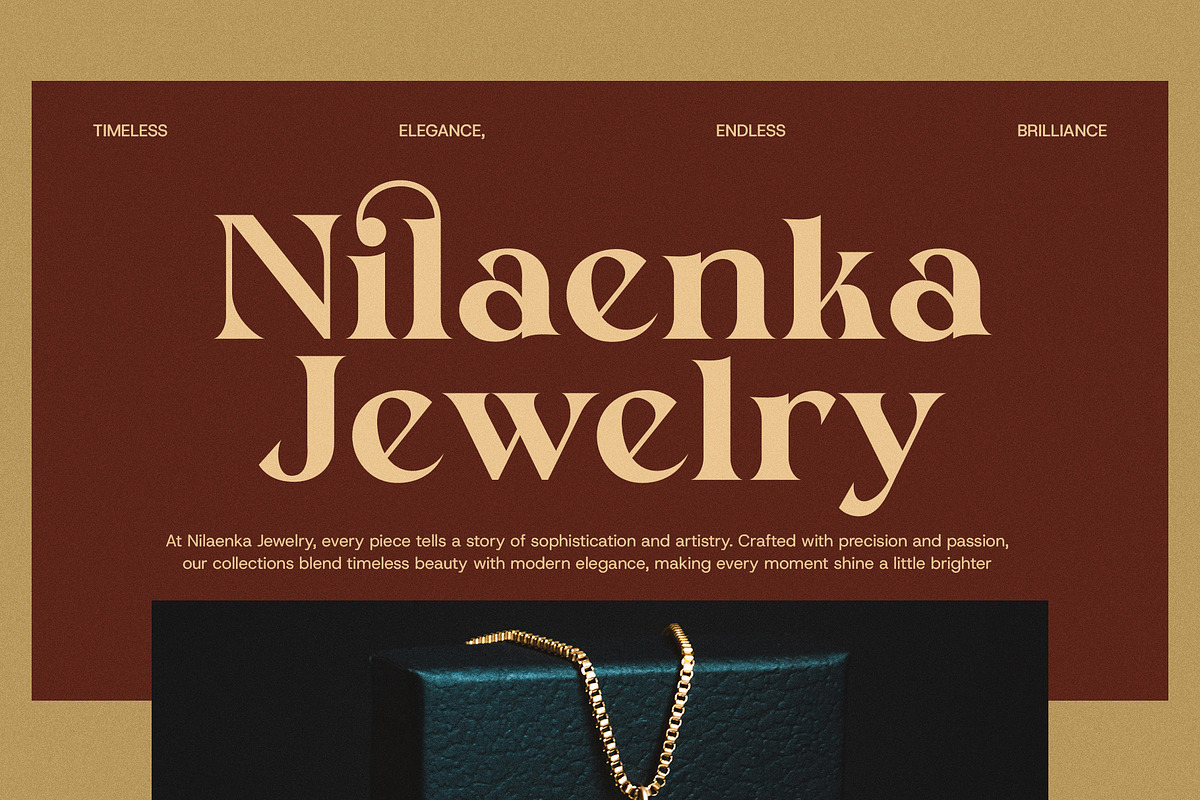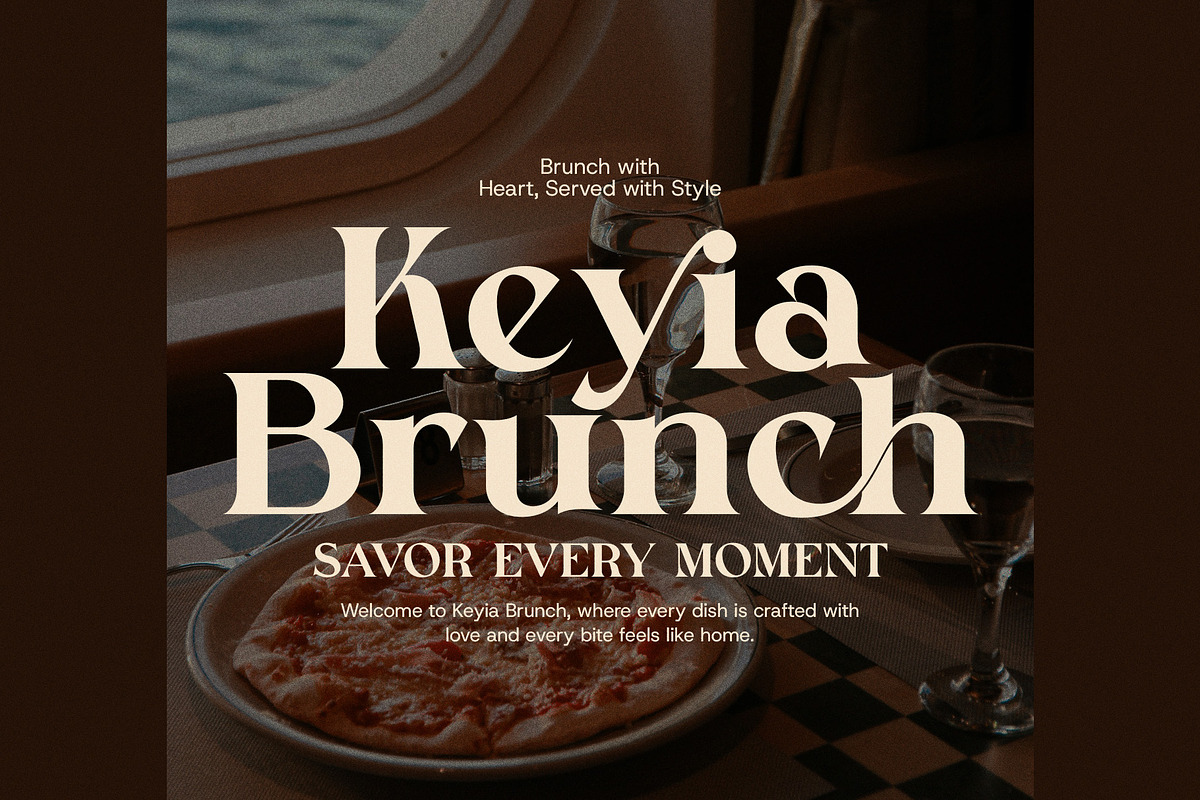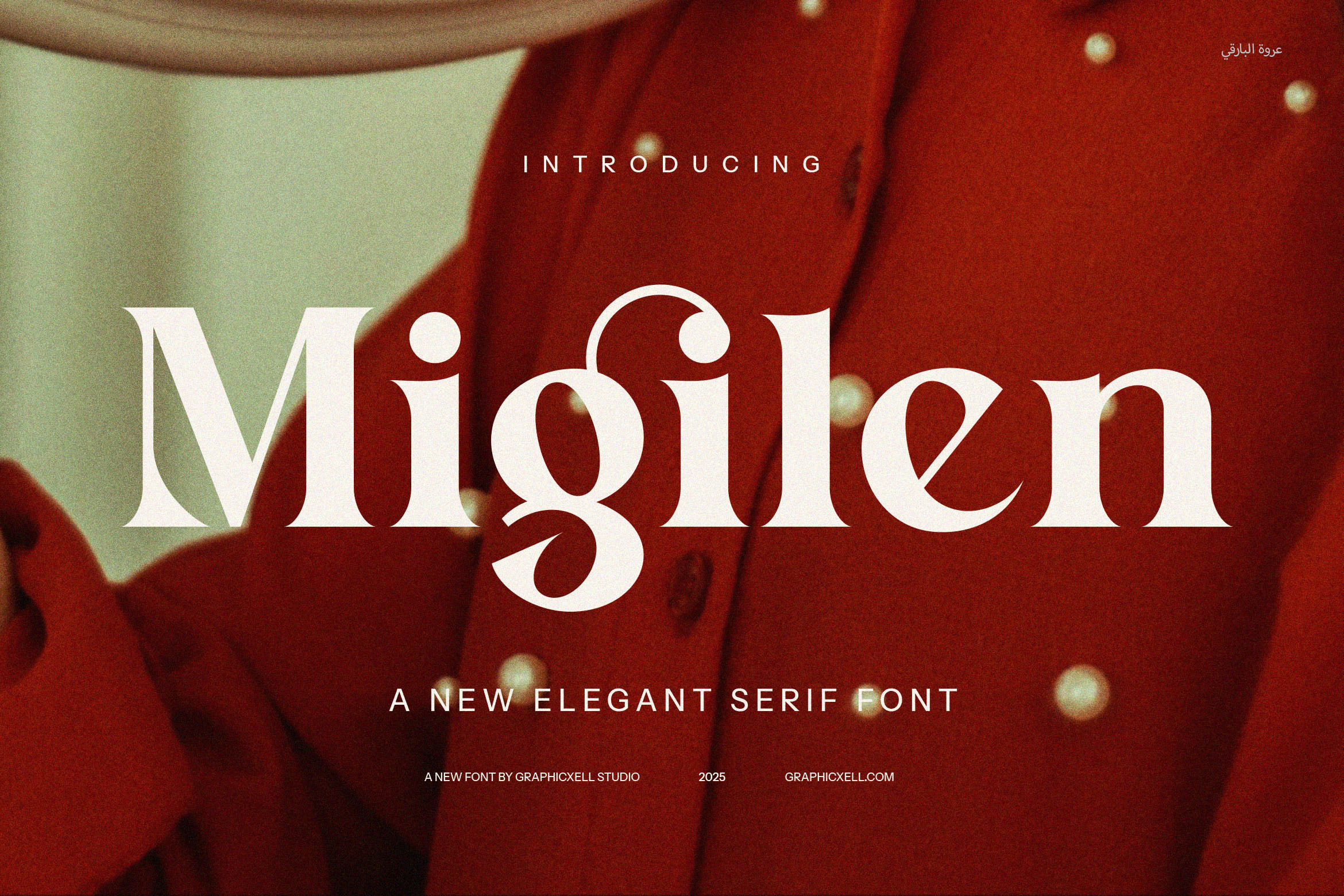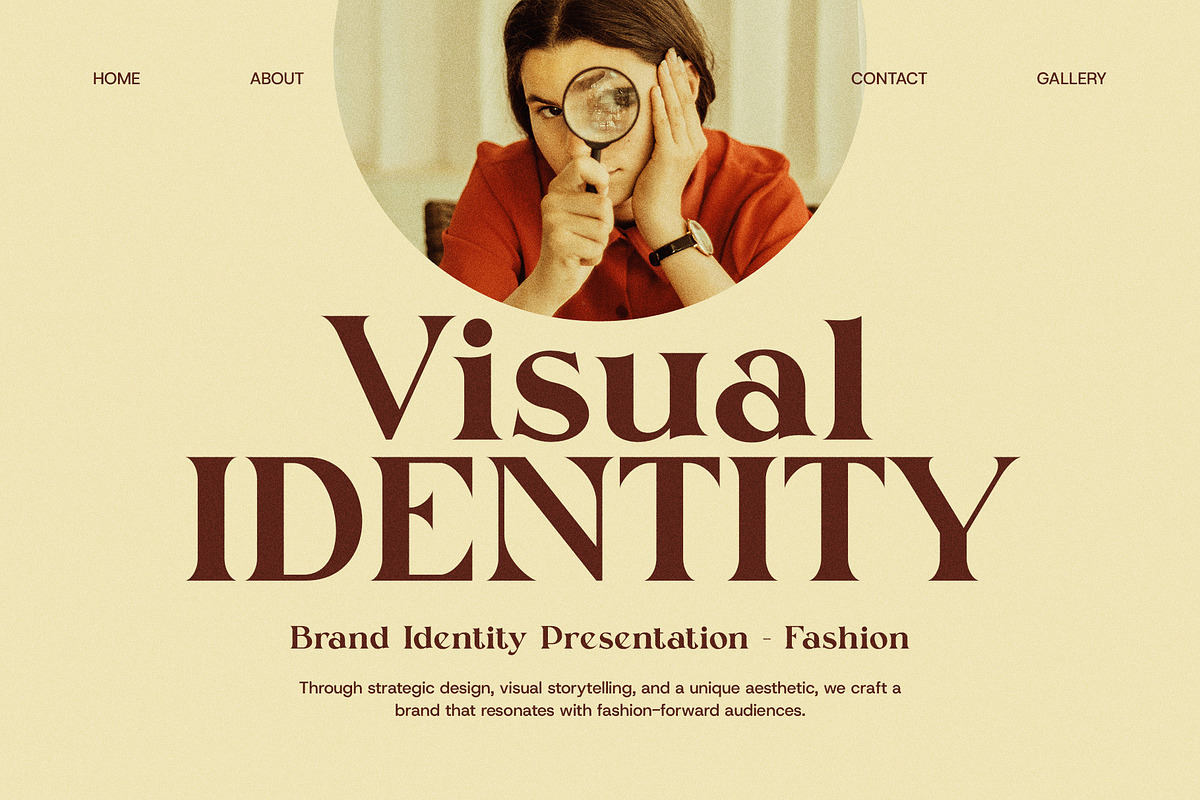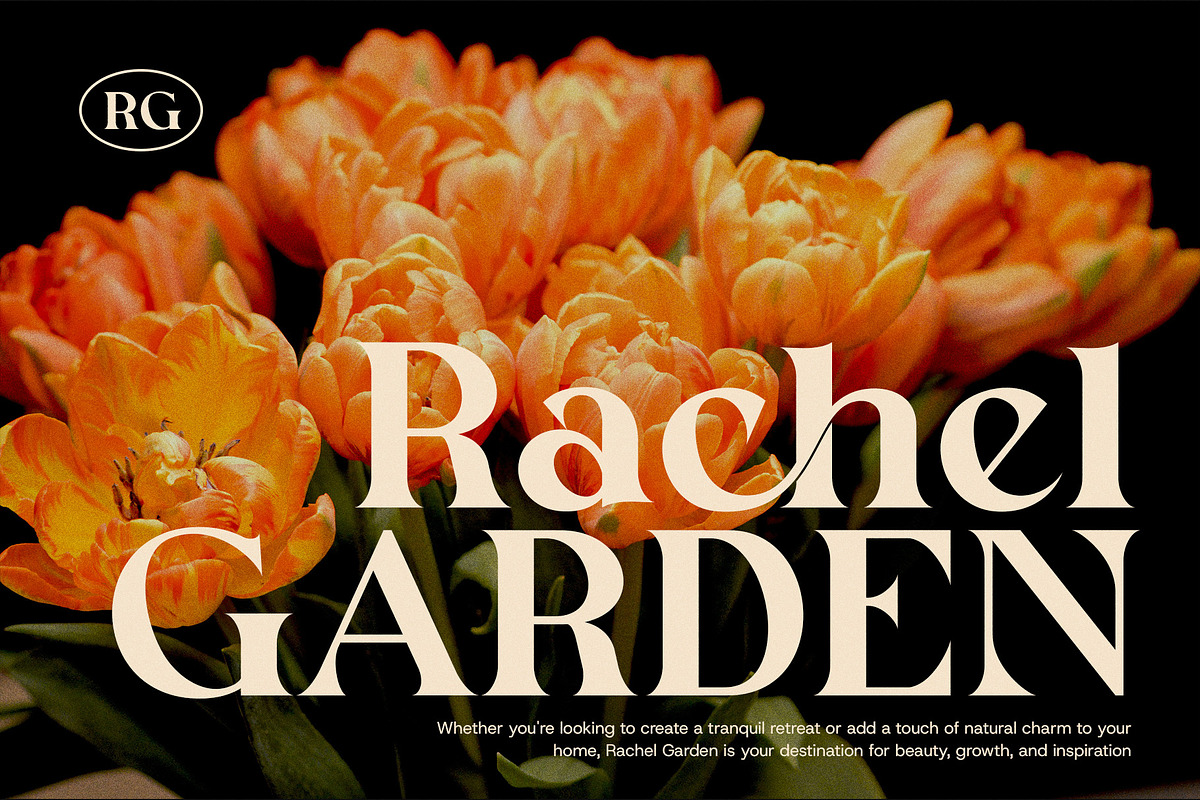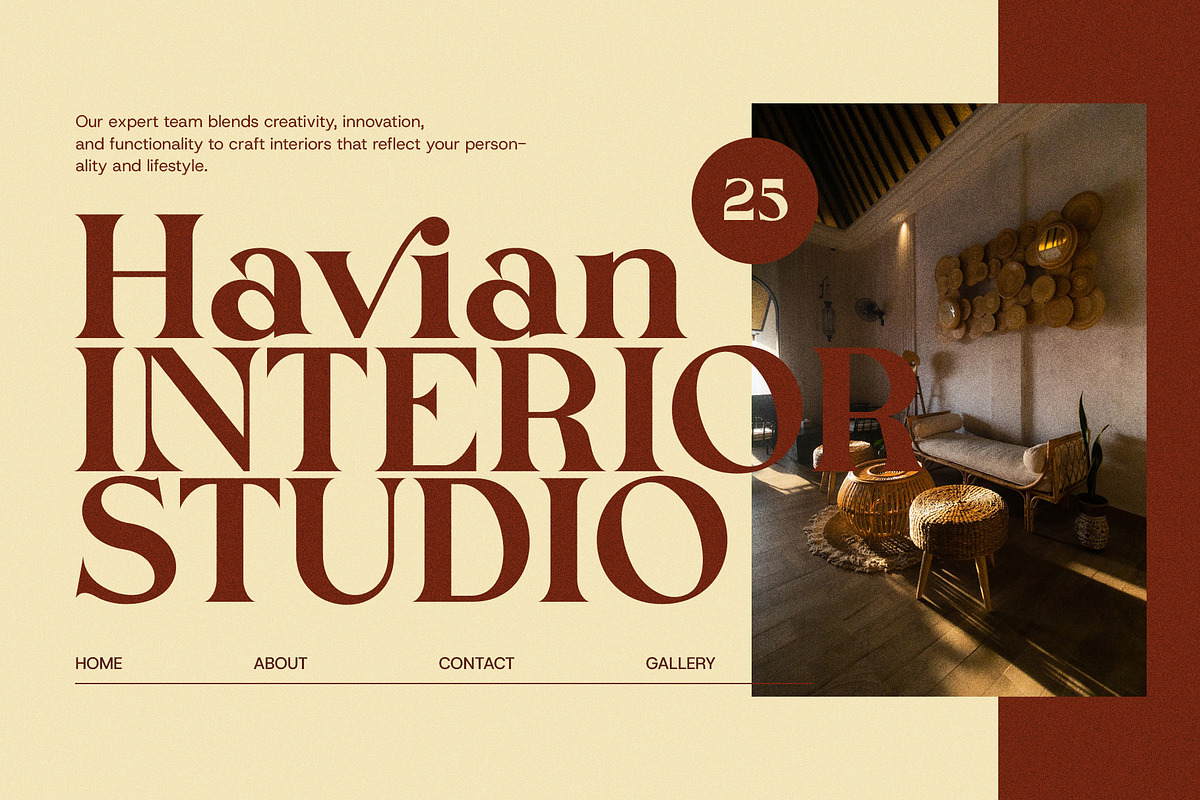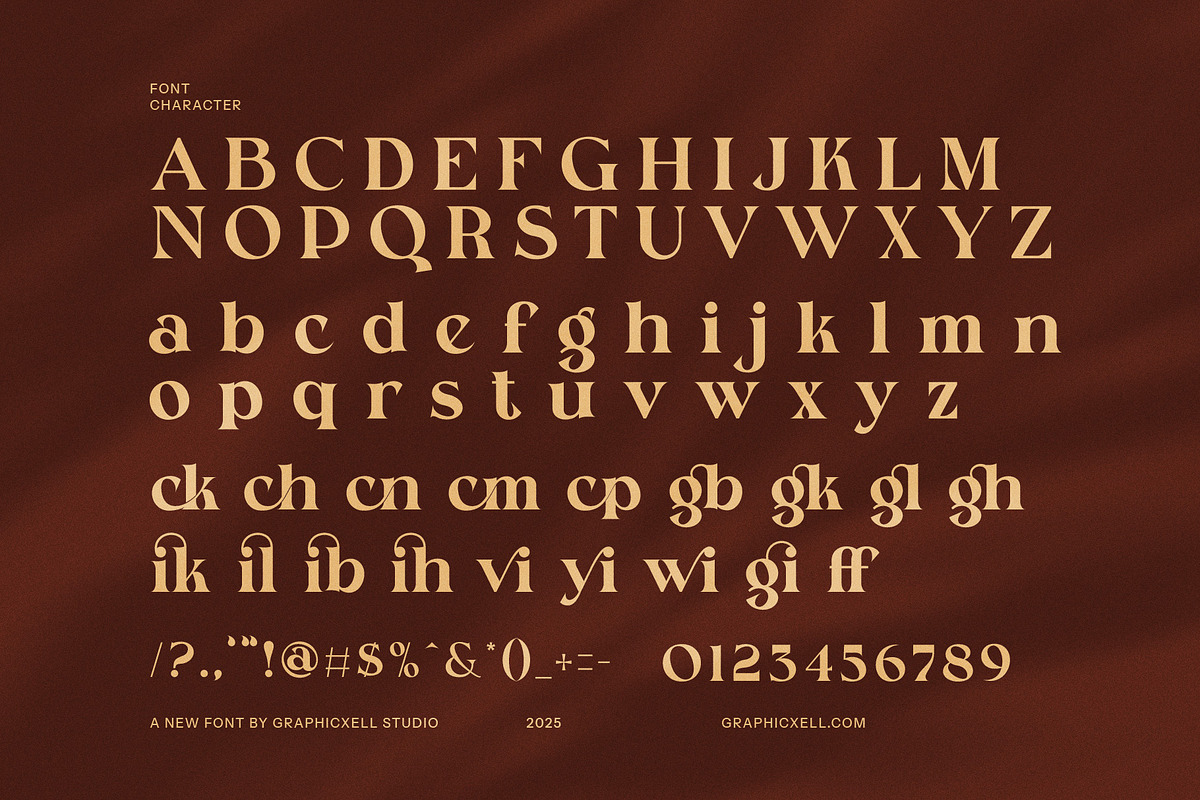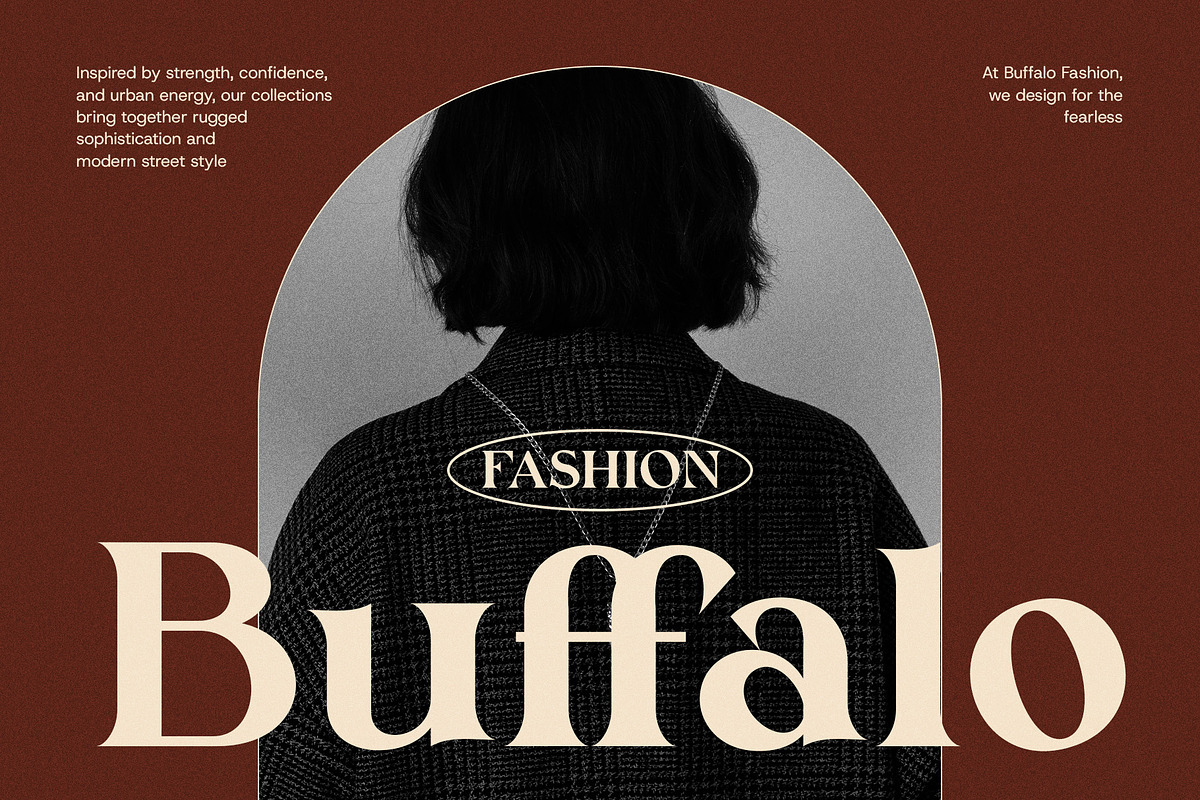
Migilen Modern Serif Font
Migilen Modern Serif Font is a stunningly elegant typeface designed to bring a touch of sophistication to any project. With its unique blend of modern aesthetics and timeless serif elements, Migilen stands out as the perfect choice for high-end branding, upscale websites, and premium product designs. The font’s exquisite ligatures and alternate forms elevate its versatility, making it an ideal candidate for logos, advertisements, magazines, and boutique marketing materials.
What truly sets Migilen apart is its impeccable balance between traditional serif features and contemporary design principles. The graceful curves and refined lines not only provide readability but also inject a sense of luxury and professionalism into your content. Whether you’re working on a chic fashion brand, an elegant restaurant menu, or a sleek corporate website, Migilen Modern Serif ensures that your design exudes style and sophistication.
This font shines in both large and small sizes, making it adaptable to a wide range of applications, from headers to body text. The thoughtfully crafted ligatures and alternate characters add a distinct flair, allowing your typography to stand out with personality and charm.
With Migilen Modern Serif Font, your design projects will have a polished and contemporary feel while maintaining an air of timeless elegance. Perfect for everything from print to digital, it brings a refined touch to advertisements, packaging, websites, logos, and beyond. Let your creativity flourish with this versatile, high-quality font that’s designed to impress.